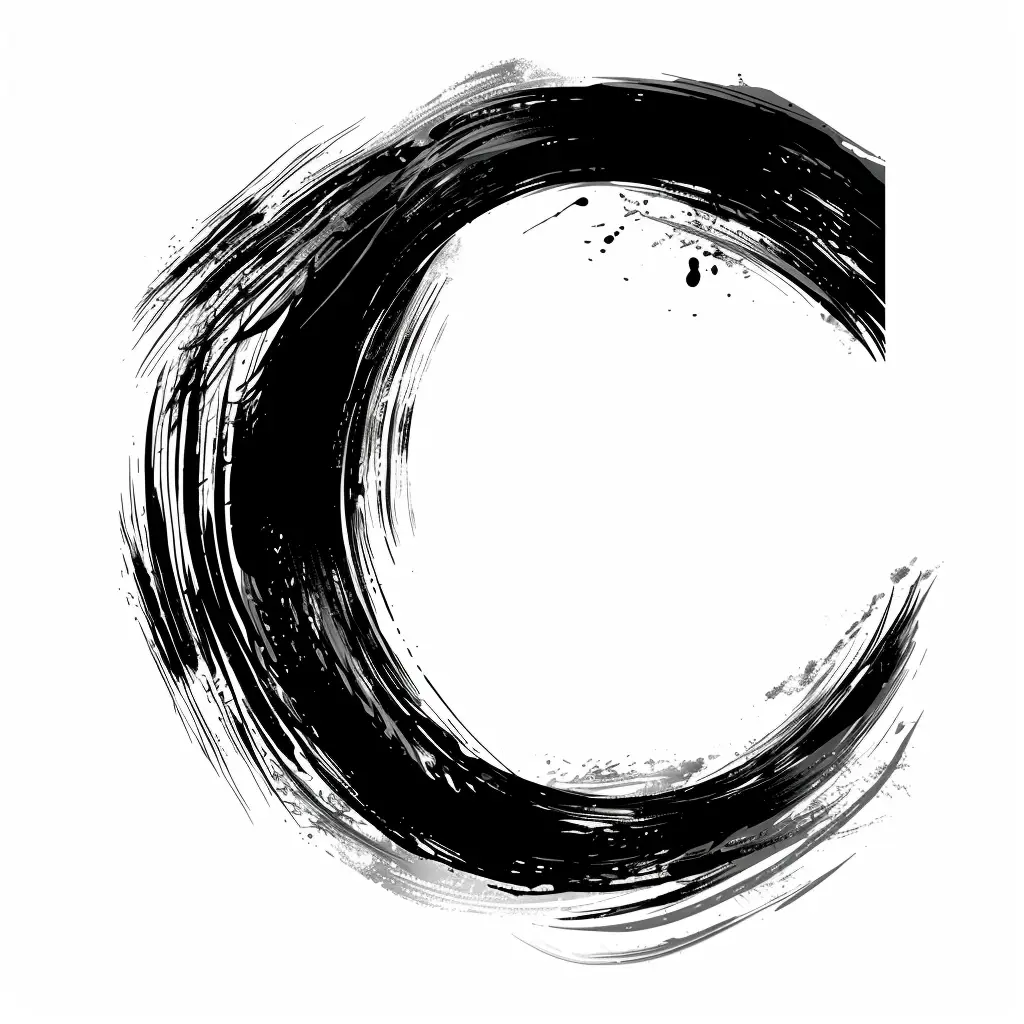
This image features a bold, abstract black circular brushstroke on a white background, resembling an incomplete ring or crescent. The brushwork is dynamic, with rough, textured edges and scattered ink splatters, creating a raw, expressive style. The high contrast between the deep black and stark white emphasizes the circular form and its energetic, hand-painted aesthetic.